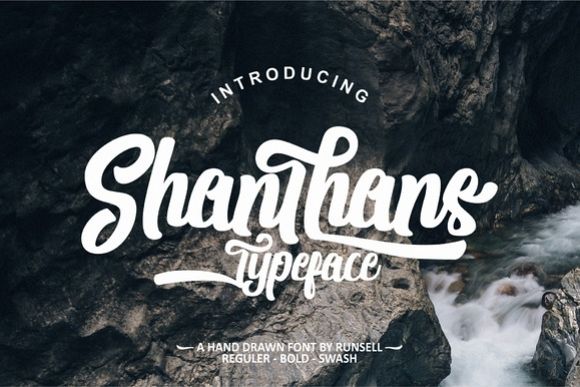
Shanthans Typeface
Shanthans Typeface is modern script. It suitable for branding, tshirt, logotype, mug, quotes, blog design, modern advertising design, invitation, Home decor, Book/Cover Title, special events, movie poster, instagram display, album cover, any handmade vintage type needs and more.